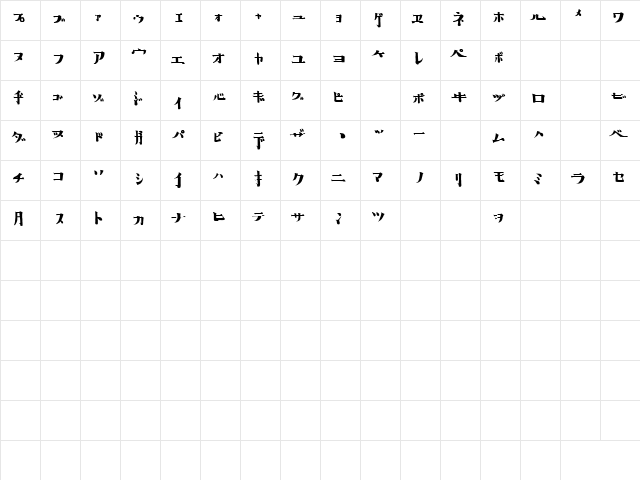
Horror Impact B Regular
Design Context for Horror Impact B Typeface
Horror Impact B carries an unsettling edge — its distorted letterforms are built to unsettle, perfectly suited to horror, Halloween, and dark creative work.
Ideal for Halloween projects, horror film titles, haunted house signage, and dark editorial design.
Font Pairing: Pair with a clean neutral sans-serif for body copy to let Horror Impact B's character lead without overwhelming the composition.
Pro Tip: Horror Impact B works best as a headline or focal element. Pair it against plain, neutral body text to amplify the contrast.